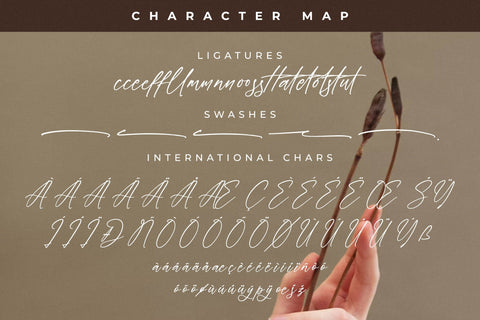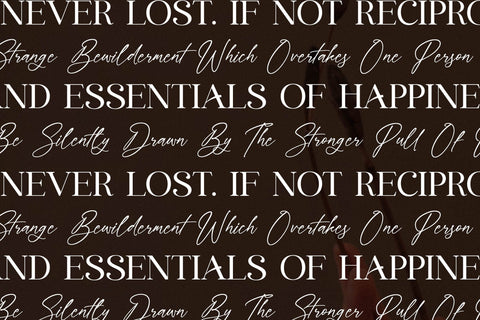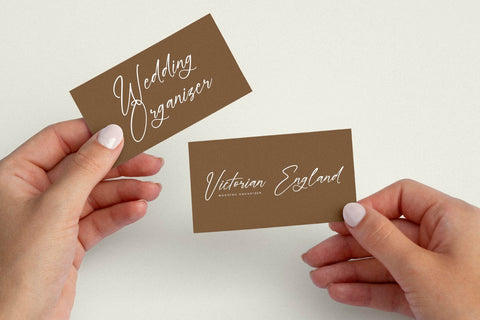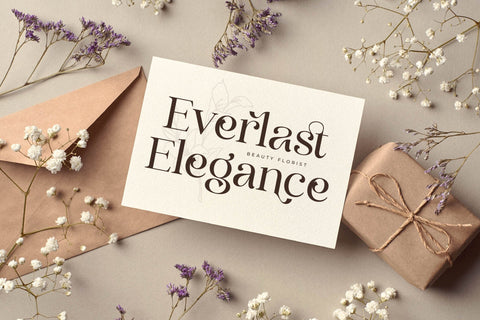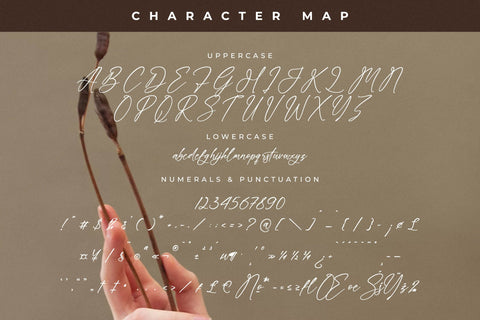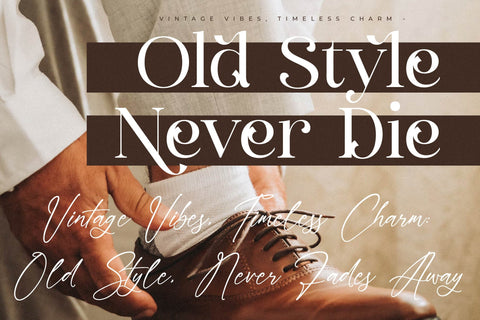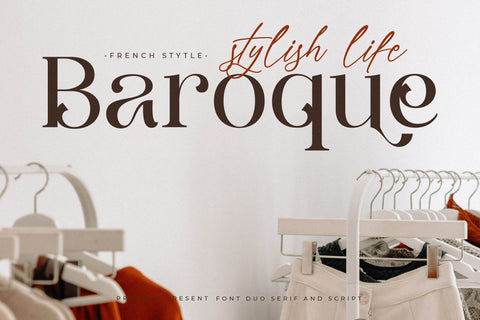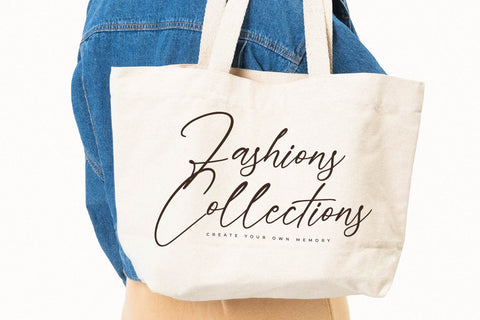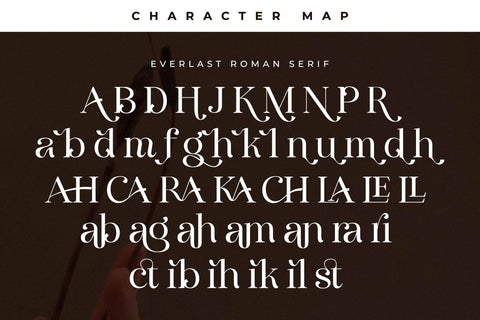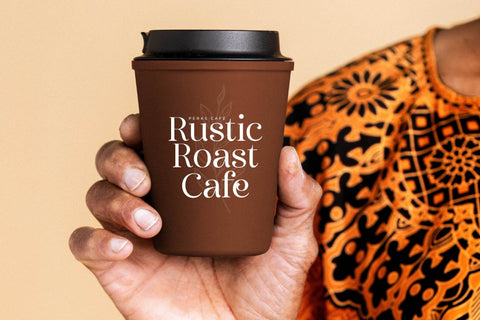
Everlast Roman Font Duo
Proudly present Everlast Roman Font Duo , created by Storytype,
A serif and script typeface that has own unique style & modern look.